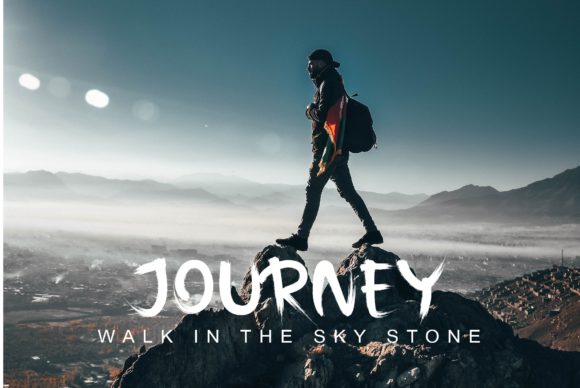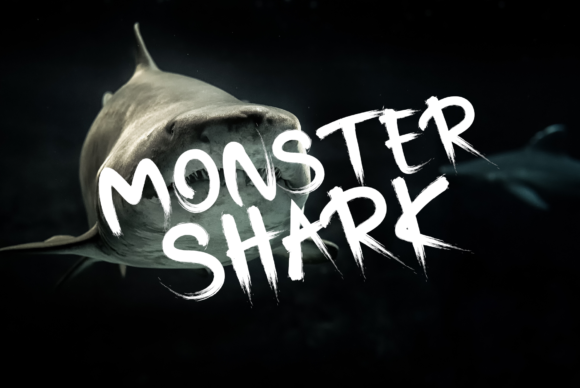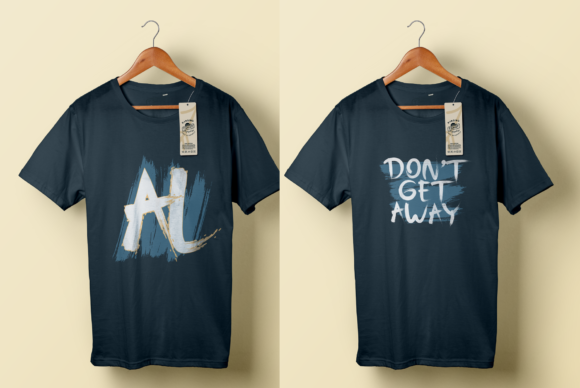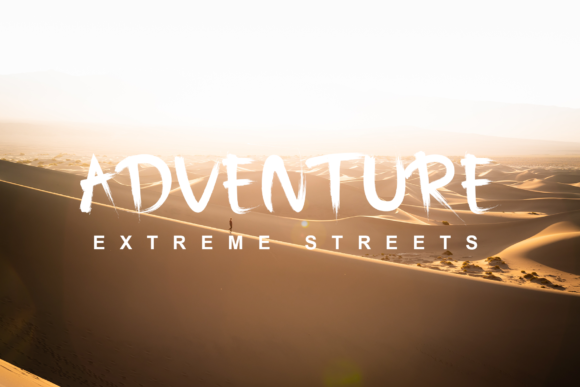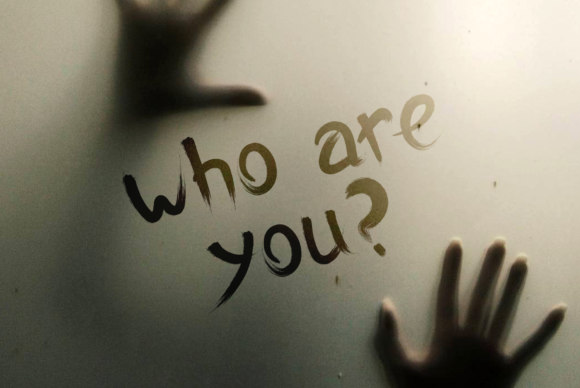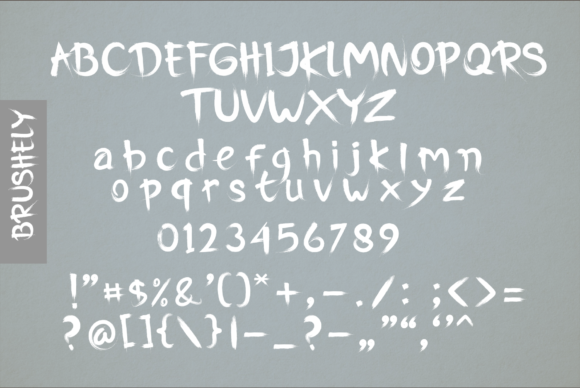
Introducing Brushely Font: The Unique Display Font That Adds a Personal Touch
Are you tired of using the same old fonts in your creative projects? Do you want to add a personal touch that makes your designs stand out from the crowd? Look no further than Brushely Font, a unique display font created with the help of a brush pen. In this article, we’ll explore the features and benefits of Brushely Font, and how it can elevate your creative ideas to the next level.
The Story Behind Brushely Font
Brushely Font is a handcrafted font that was created using a brush pen. The font’s unique texture and imperfections give it a personal and organic feel that’s hard to replicate with traditional digital fonts. The creator of Brushely Font wanted to capture the essence of handwriting and bring it into the digital world, making it perfect for designers and crafters who want to add a touch of personality to their work.
Key Features of Brushely Font
- Unique Texture: Brushely Font has a distinctive texture that’s reminiscent of handwriting with a brush pen. The font’s texture adds a layer of depth and visual interest to any design.
- Display Font: Brushely Font is designed specifically for display purposes, making it perfect for headlines, titles, and other attention-grabbing elements.
- Handcrafted: Brushely Font was created by hand using a brush pen, giving it a personal and organic feel.
- Versatile: Brushely Font can be used in a variety of creative projects, from digital designs to print materials.
Benefits of Using Brushely Font
So why should you use Brushely Font in your creative projects? Here are just a few benefits:
- Adds Personality: Brushely Font adds a personal touch to your designs, making them more relatable and engaging.
- Stand Out: Brushely Font’s unique texture and style make it a great way to make your designs stand out from the crowd.
- High-Quality: Brushely Font is a high-quality font that’s designed to look great in any context.
How to Use Brushely Font
Brushely Font is a unique and versatile display font that’s perfect for designers and crafters who want to add a personal touch to their creative projects. With its handcrafted texture and imperfections, Brushely Font is sure to make your designs stand out from the crowd. Whether you’re working on a digital design or a print project, Brushely Font is a great choice. So why not give it a try and see how it can elevate your creative ideas to the next level?